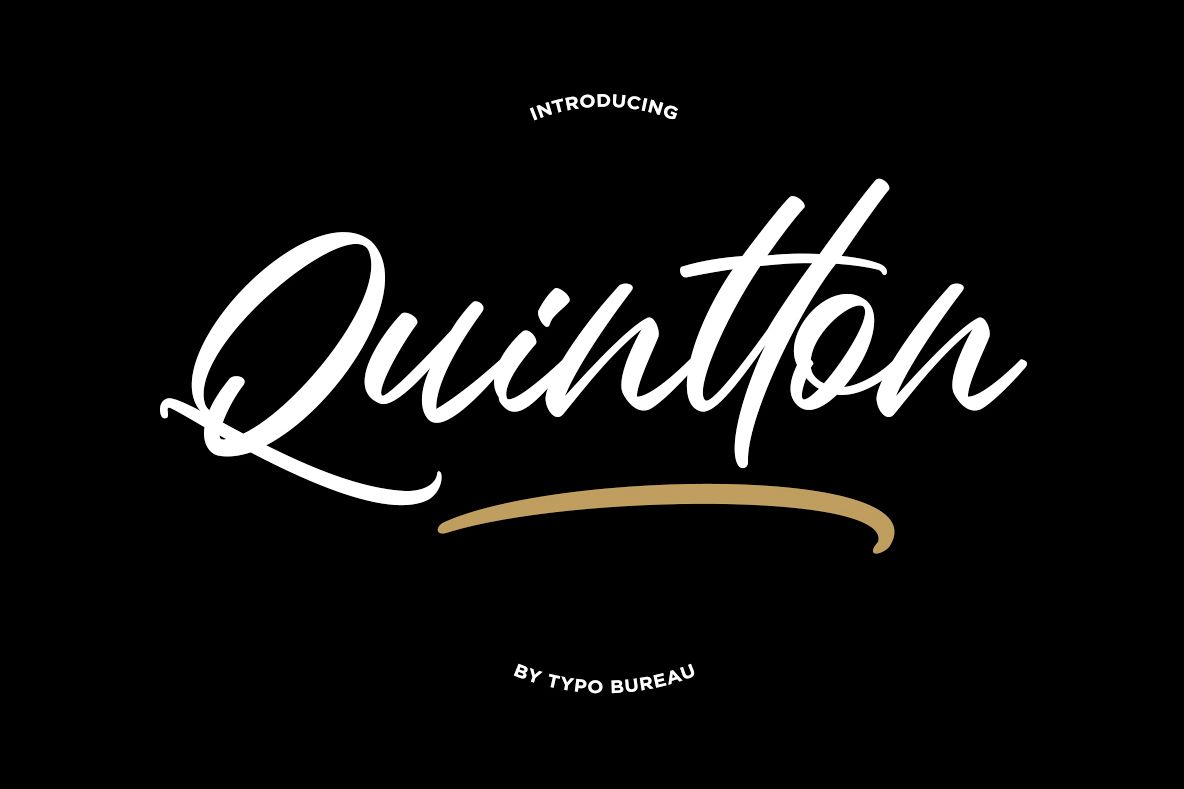
Quintton Script
Quintton script font.Is a casual clean brush stroke font. perfect for logo design, branding, invitation, t-shirts print, mock up, magazine, signage and so much more! Quintton is handmade feel its perfect for your upcoming projects. so don't miss out! Files include:
Quintton Script